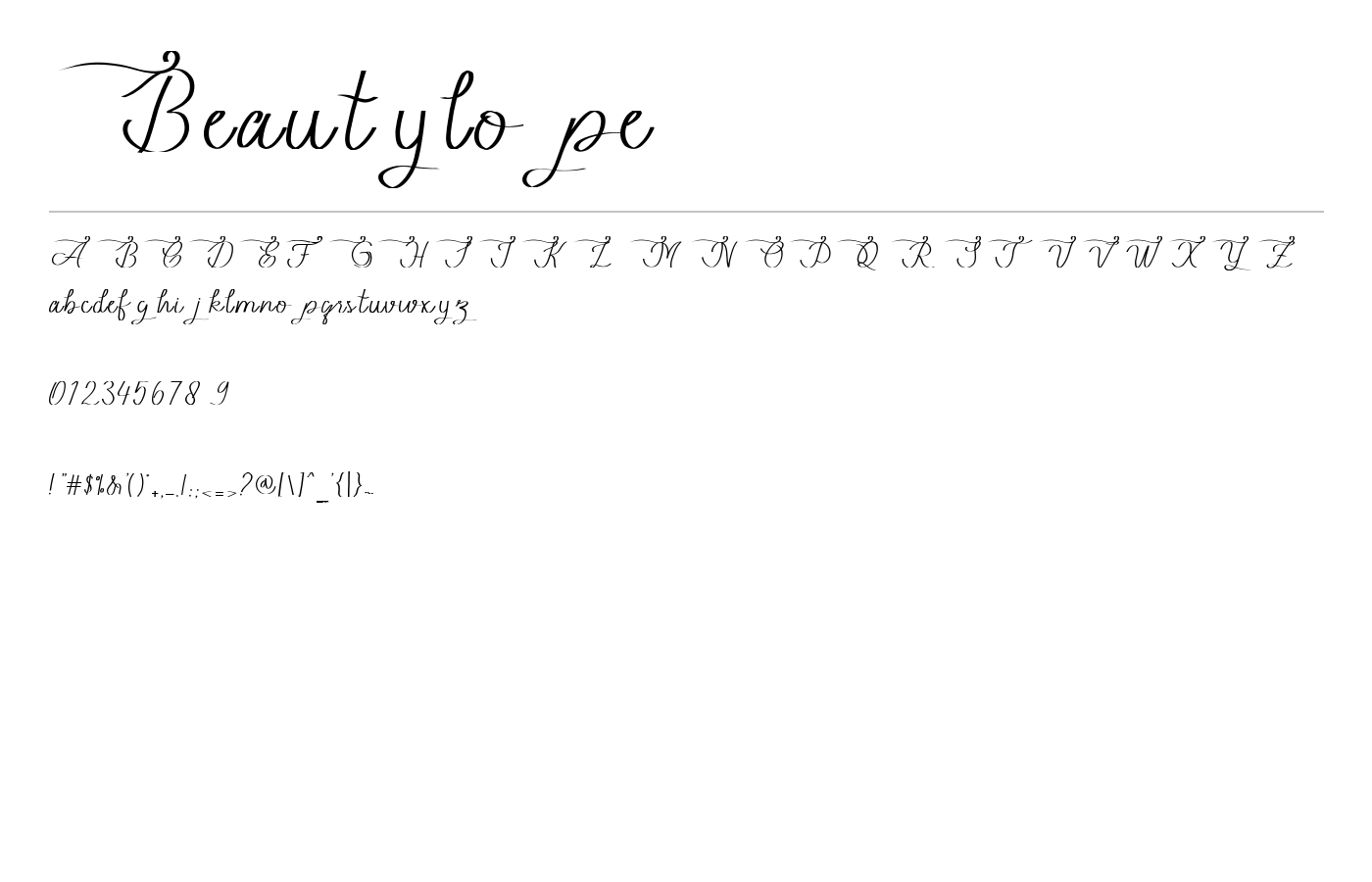
Beautylope is an elegant and delicate script font featuring thin, flowing strokes with intricate swashes and flourishes that create a graceful, handwritten feel. Its slender letterforms and refined curves make it perfect for luxury branding, wedding invitations, and sophisticated editorial design where a touch of romance and femininity is desired. This font works best in large sizes for headlines or logos, as its fine details shine with ample space and close attention.
Beautylope Font
About Beautylope Font
| Font family | Beautylope Font |
| Designer | Dedi Priadi |